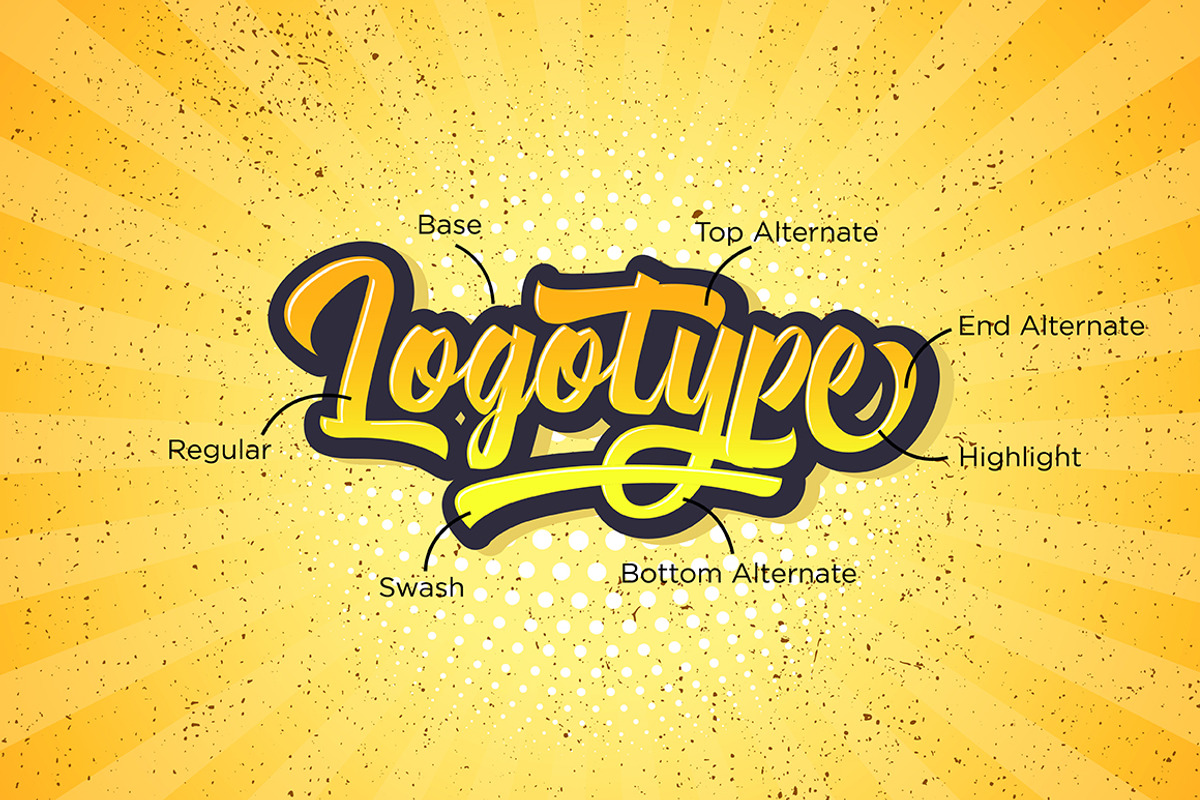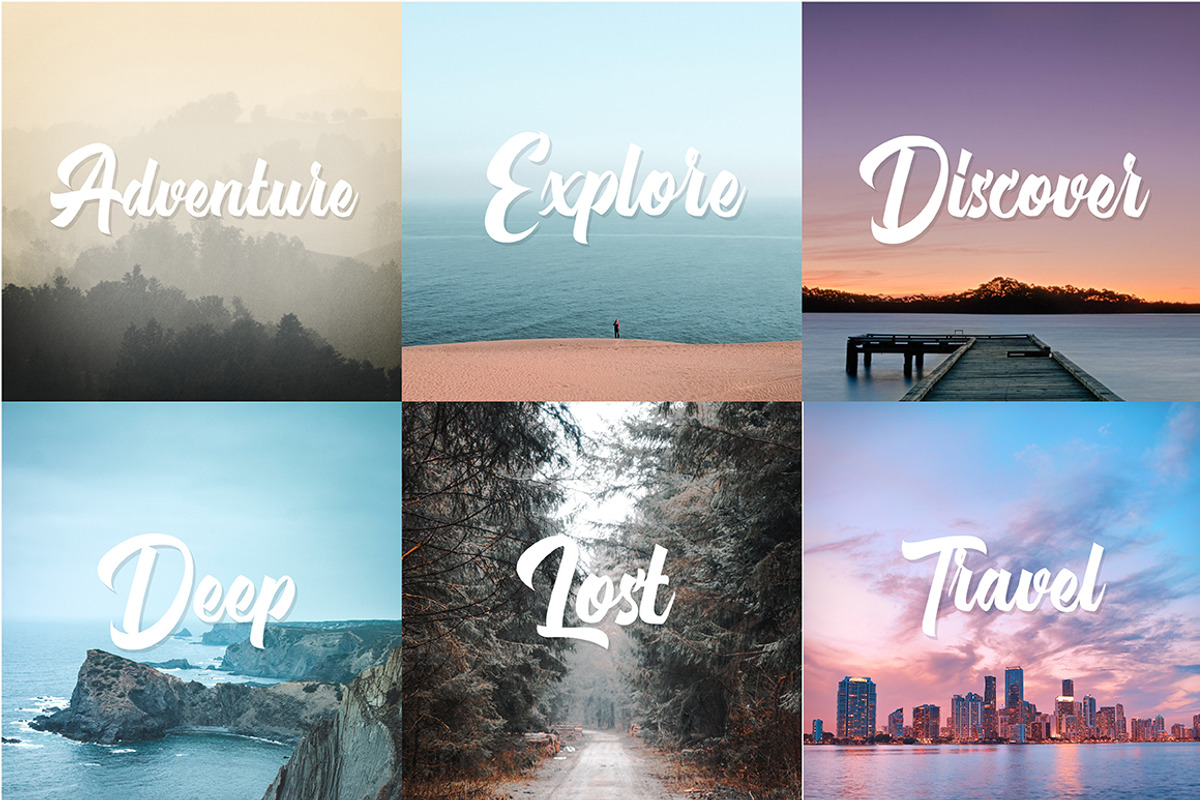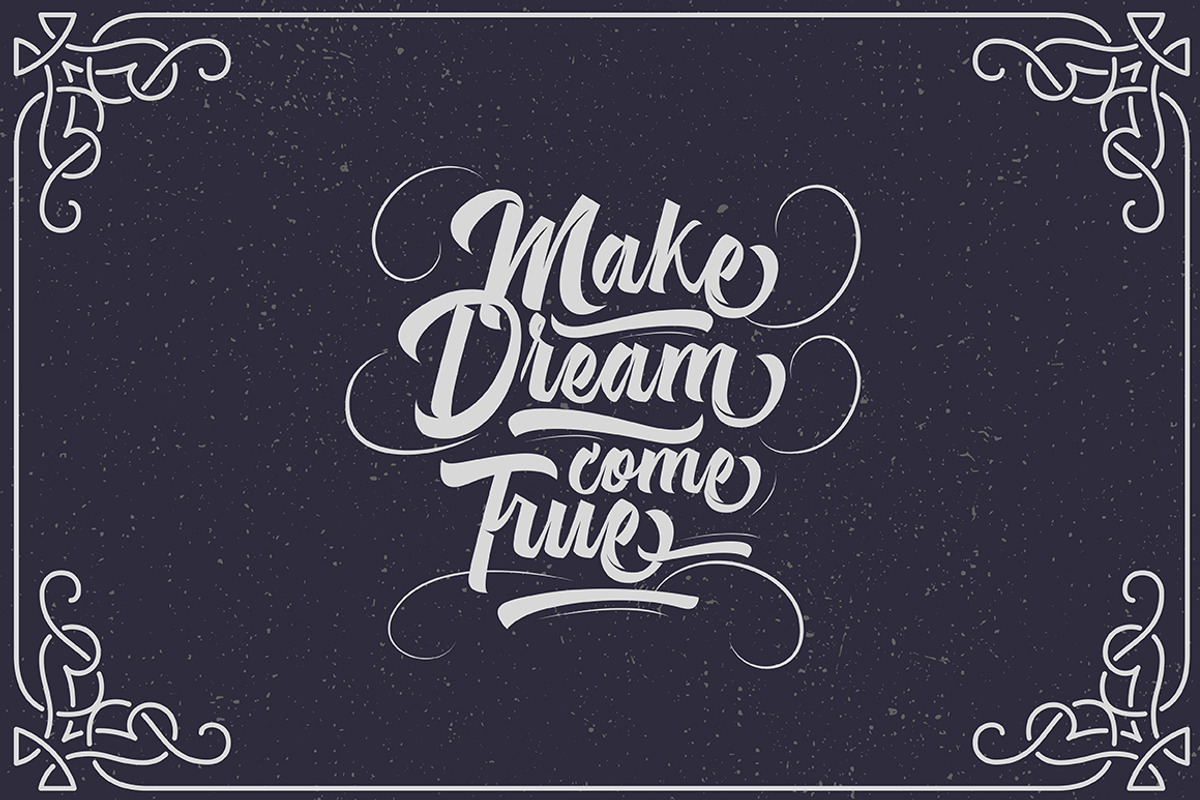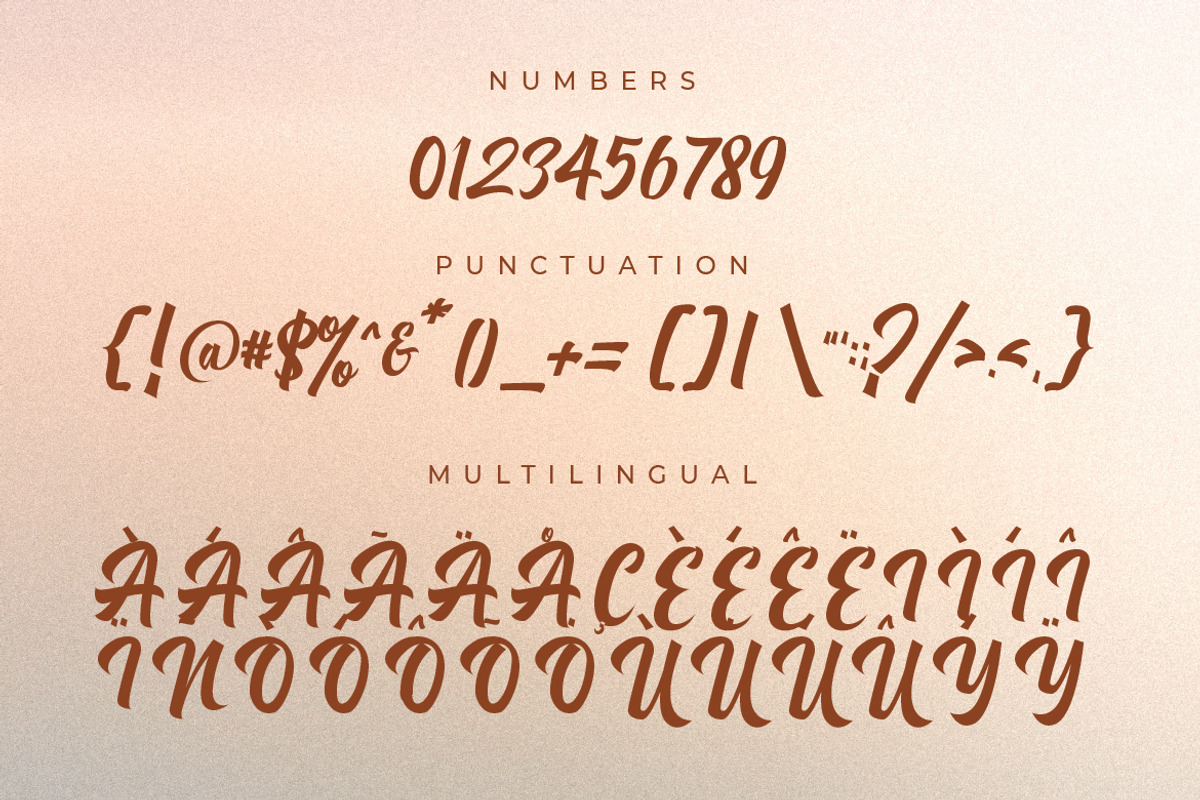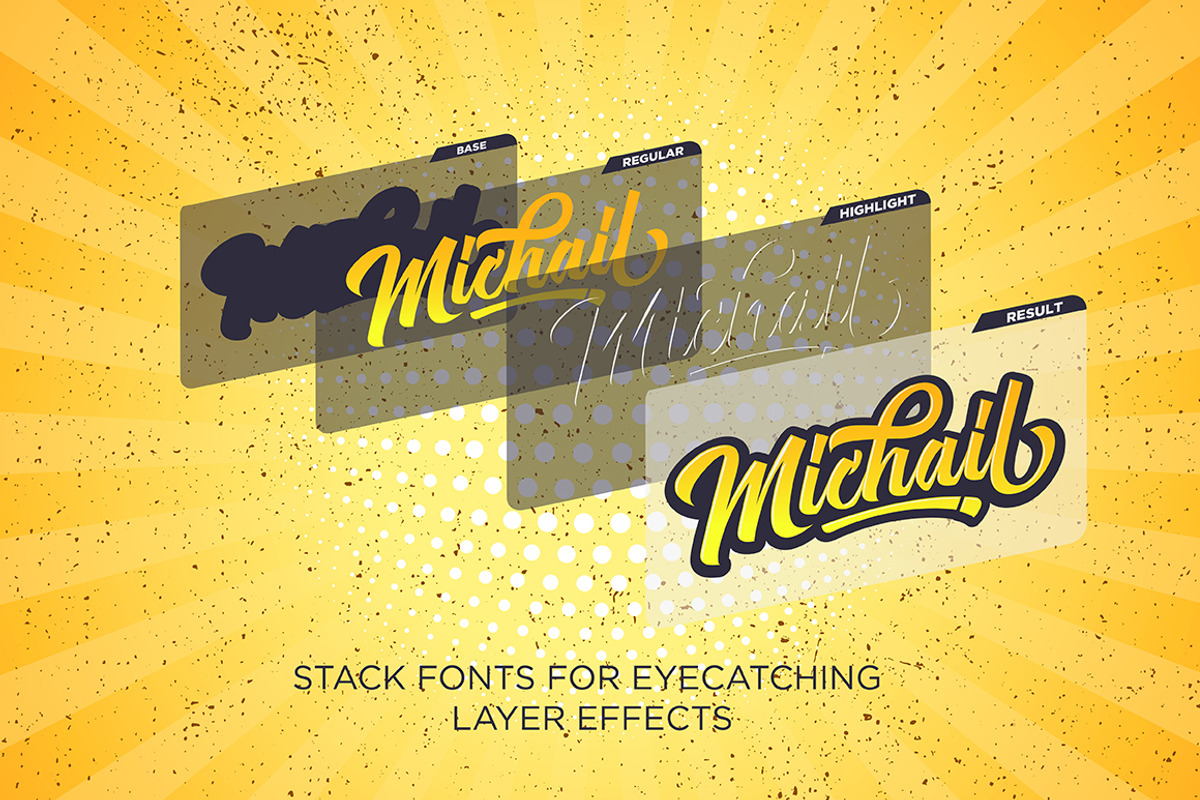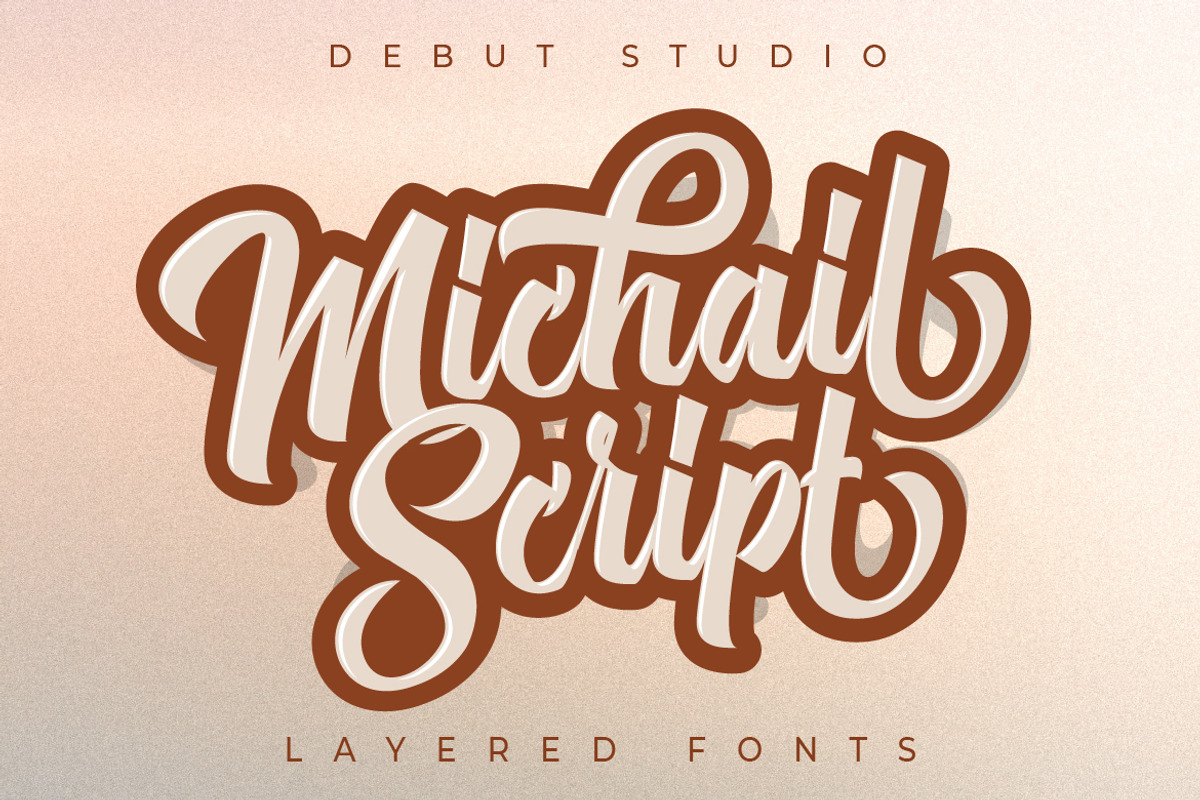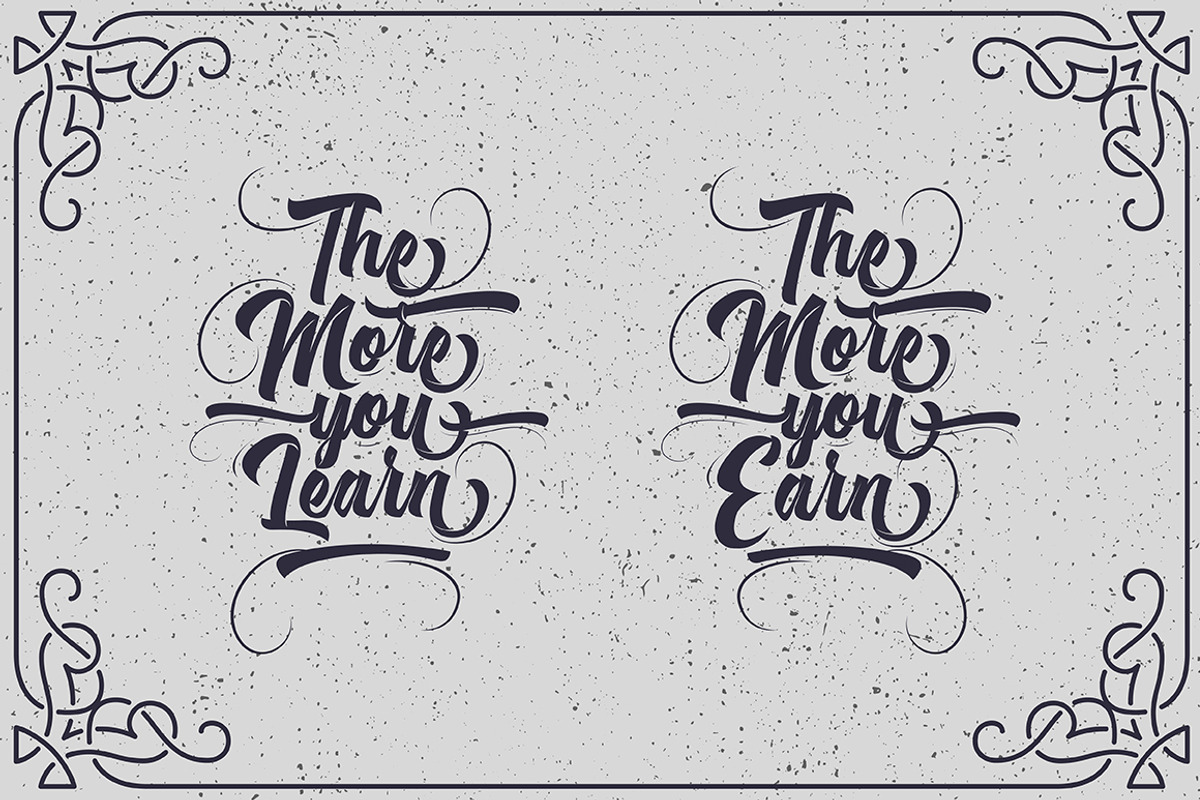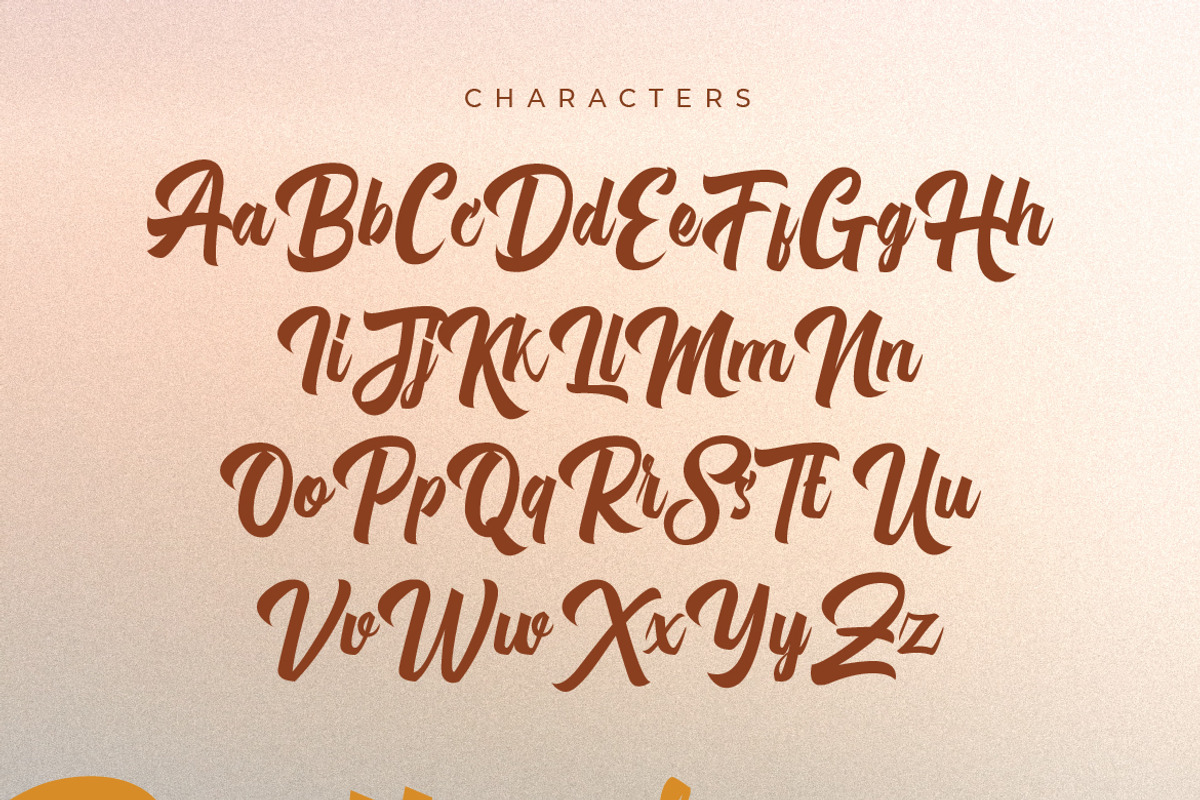
Michail Script Layered Fonts
Introducing, Michail Script (Layered Fonts) Michail Script has many fonts, the fonts are used with layers method, so it can generate interesting fonts to see, you no longer need to worry about how to make effect on the text.
This font is suitable for young, passionate design, such as logo design, t-shirts, branding, and various other design purposes.
- Alternate Stylistic Character